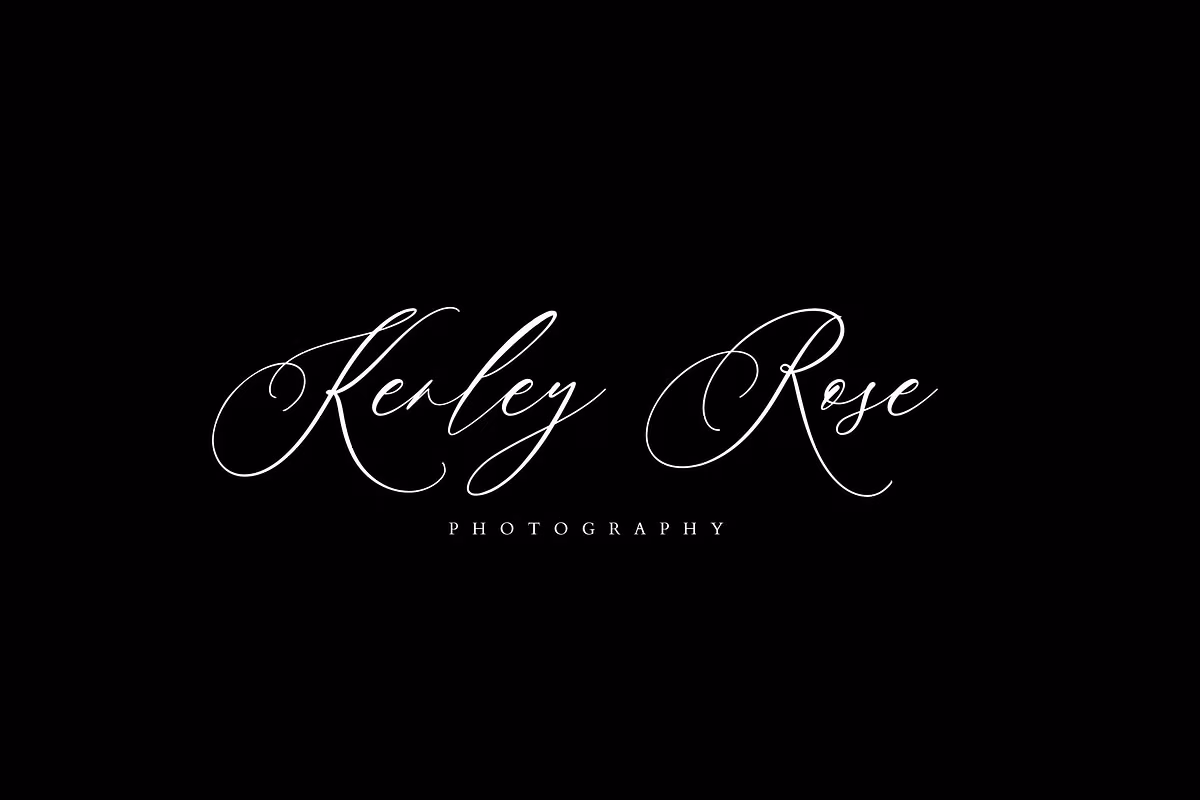
You must purchase this font for commercial use. However, you can download Malika and Anthony Modern Calligraphy Font Free Download for testing purposes. Malika and Anthony is a sophisticated and elegant modern calligraphy font duo that combines flowing script with a sleek and contemporary feel. Perfect for wedding invitations, logos, branding, greeting cards, and other high-end design projects, this font duo offers a refined and artistic touch to your typography.
The script font features smooth, elegant strokes with a natural, hand-lettered appearance, while the complementary font offers a clean, modern look that balances beautifully with the script. Whether you're designing for a luxury brand, a romantic event, or a chic modern project, Malika and Anthony provides a timeless and stylish touch.